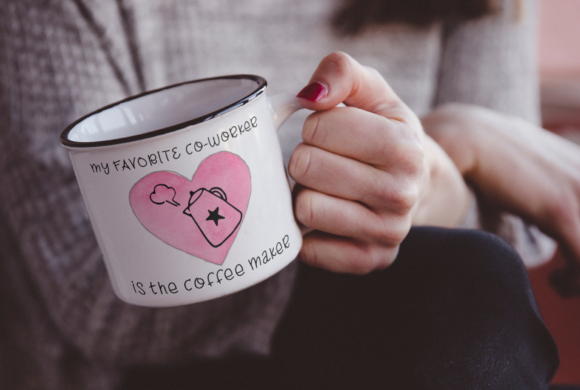
Introduction to Royal Rebel Font Font
Fonts play a crucial role in design, and the Royal Rebel Font font is a typeface that brings both character and versatility to any project. Whether you’re working on a branding project, a website, or a print design, the Royal Rebel Font font offers a unique style that can elevate your work.
Royal Rebel is a majestic serif font with a quirky twist.
Use it to add a charming vibe to any design idea .
Key Features of Royal Rebel Font Font
Why Choose Royal Rebel Font Font?
The Royal Rebel Font font is more than just a typeface – it’s a design tool that helps you communicate your message with style and clarity. Its unique character set and versatile design make it suitable for a wide range of applications, from elegant invitations to bold headlines.
With its carefully crafted letterforms and balanced proportions, the Royal Rebel Font font ensures readability and visual appeal across all mediums.
What makes Royal Rebel Font font special?
The Royal Rebel Font font stands out with its unique design, exceptional readability, and versatility across various design applications.